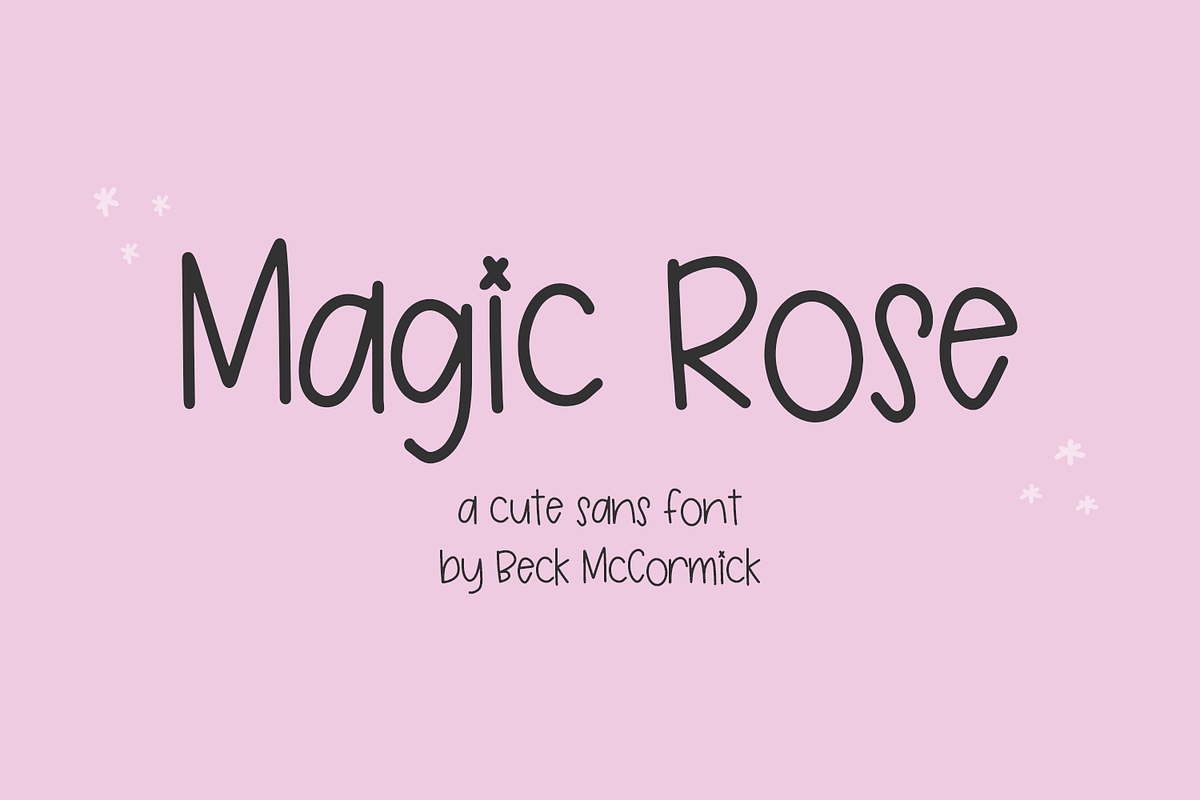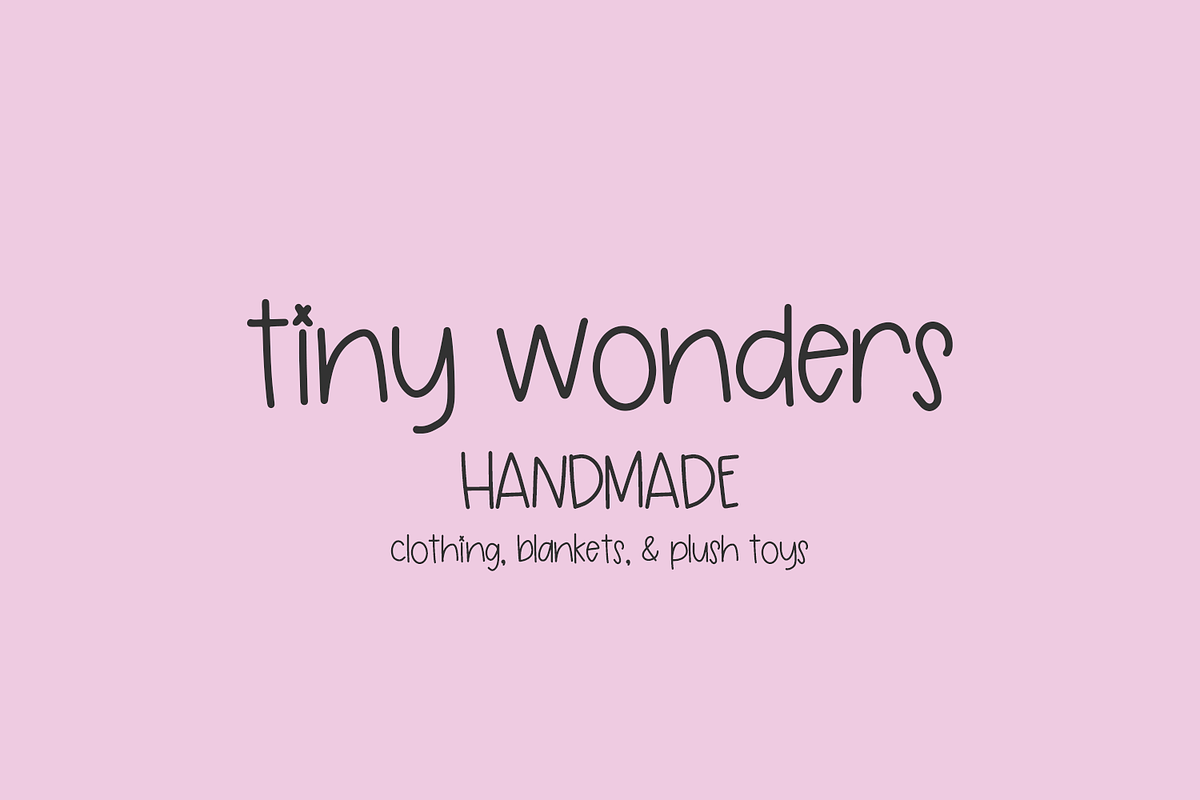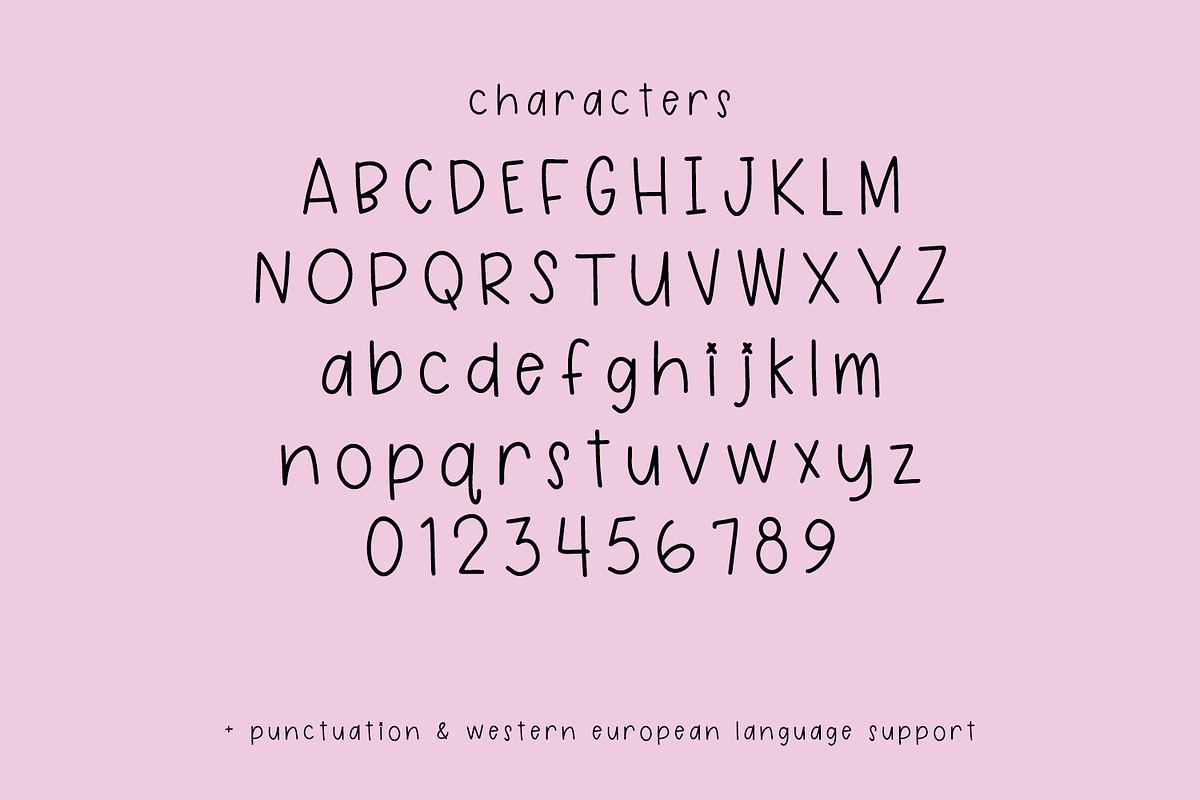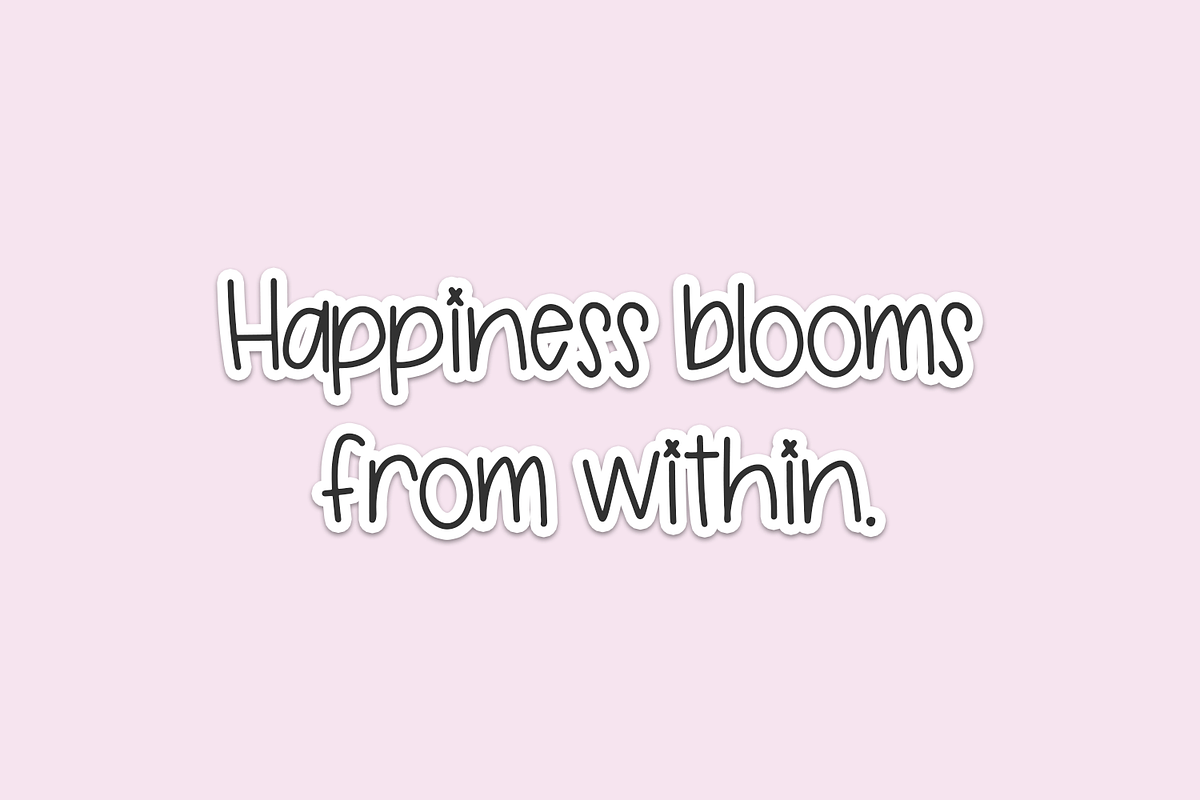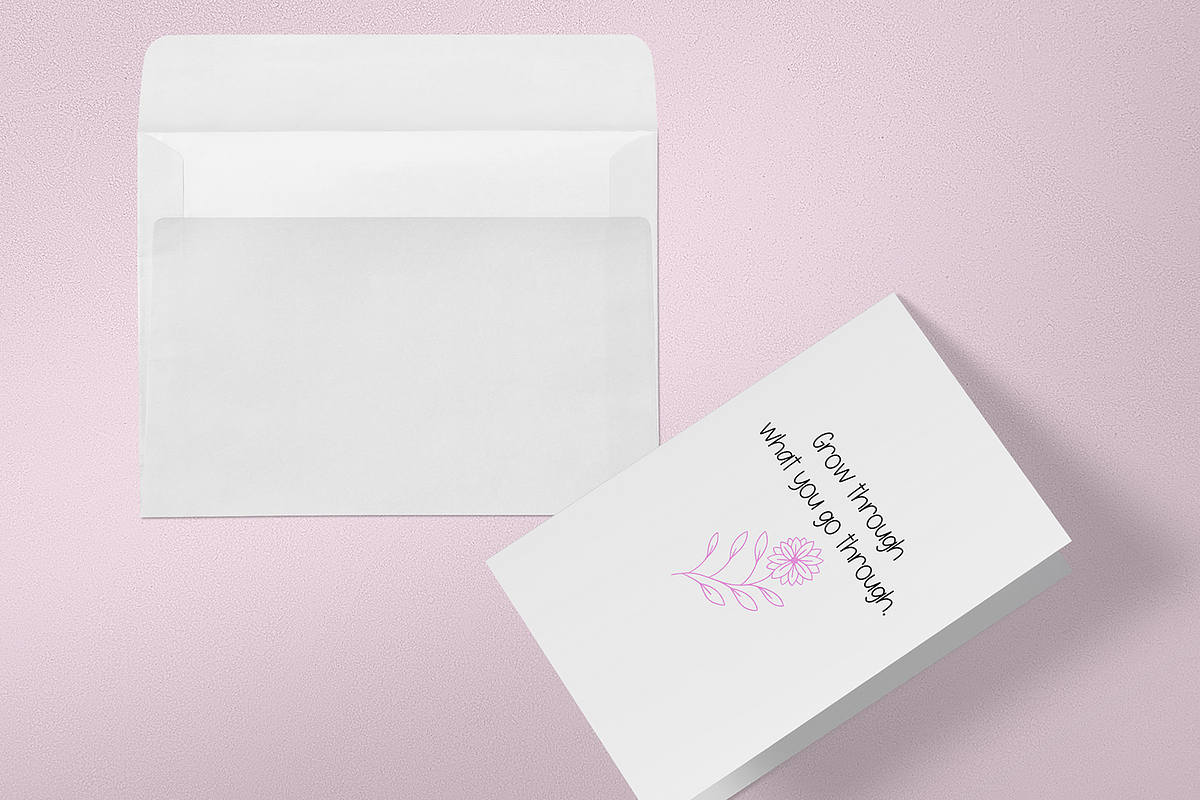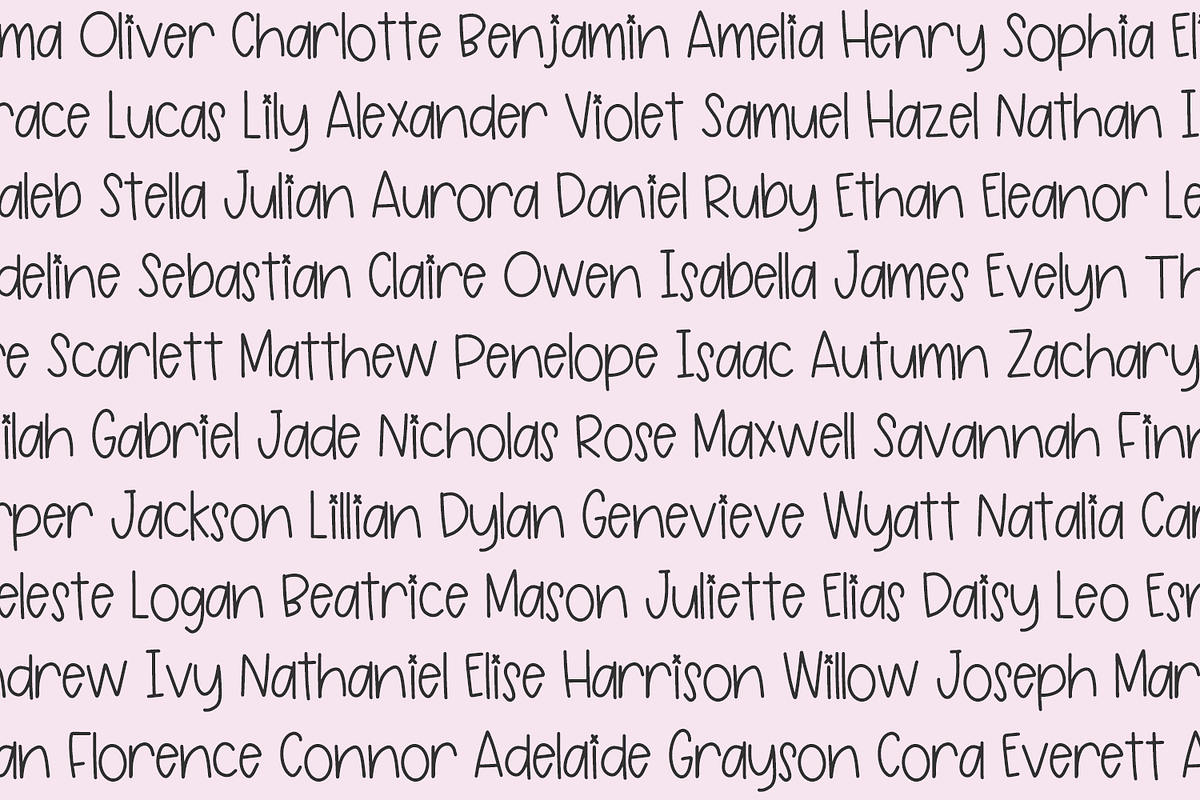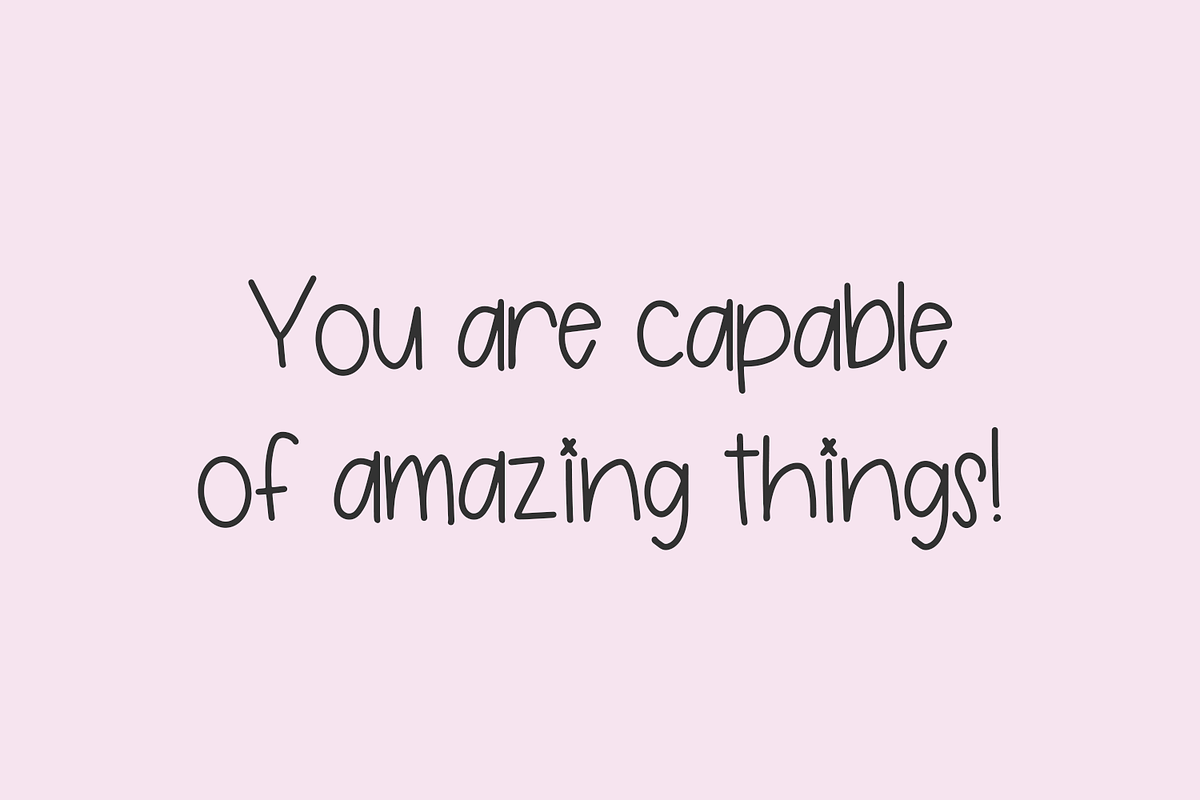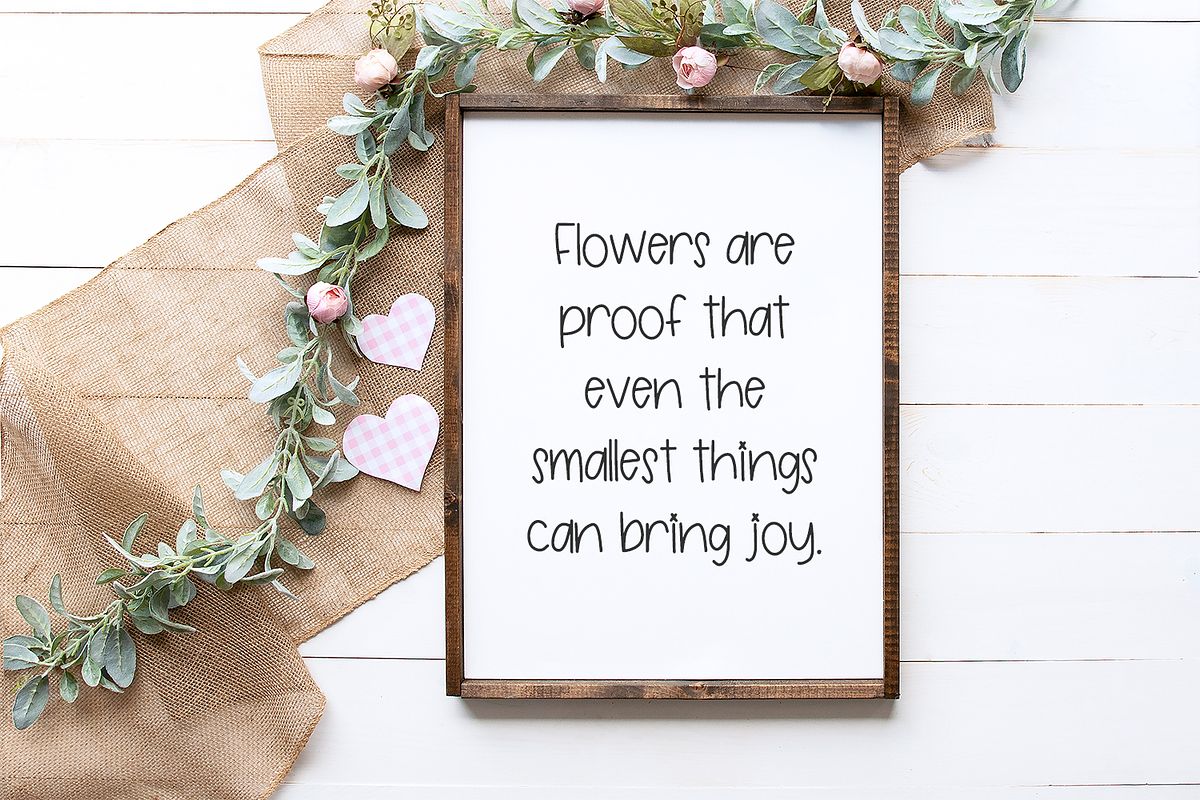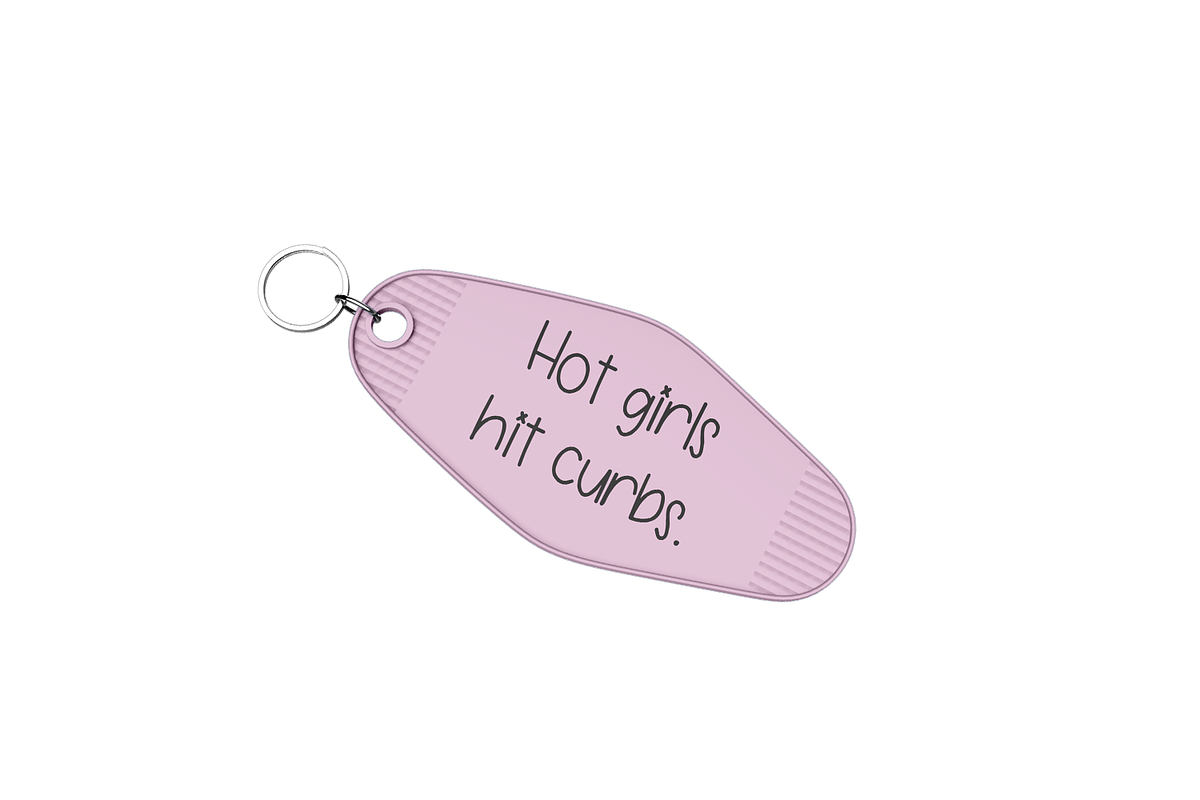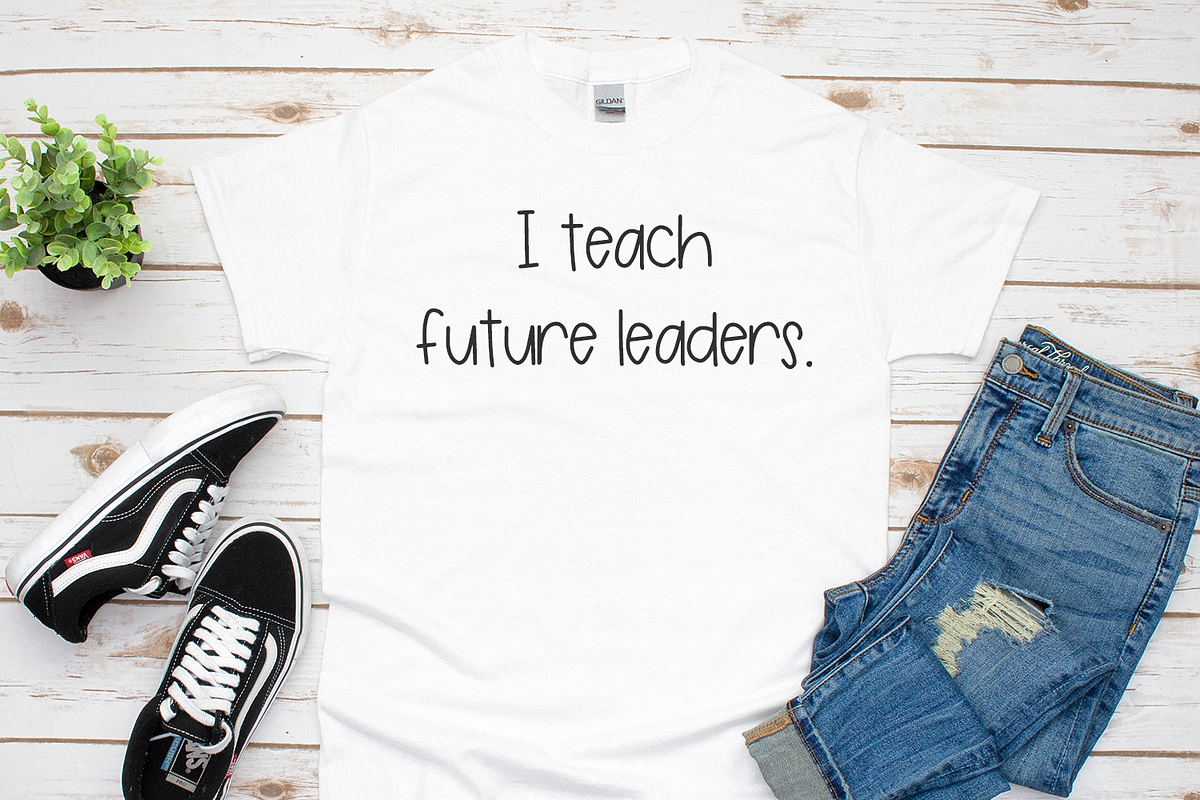
Magic Rose Sans
Meet Magic Rose Sans, a neat & tidy font. Magic Rose is a little playful, and its key feature is the cute little x that tops the lowercase i & j, instead of a dot. Since Magic Rose is a very clean, legible handwritten font, it would be used best with your digital planner app or note-taking app, like Goodnotes or Notability. Magic Rose Sans is perfect for fun branding projects, social media graphics, marketing materials, and crafting projects with your Cricut machine or Silhouette machine.
Magic Rose Sans includes:
- full upper + lowercase characters
- numbers + punctuation
- PUA-encoding
- Western European language support - English, French, Spanish, Portuguese (Brazil), Portuguese (Portugal), Italian, German (Germany), German (Austria), Dutch, Danish, Swedish, Norwegian (Bokmål and Nynorsk), Finnish, Icelandic, Irish, Welsh